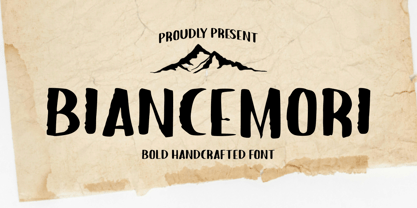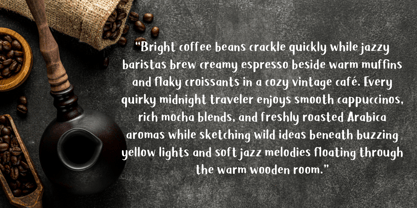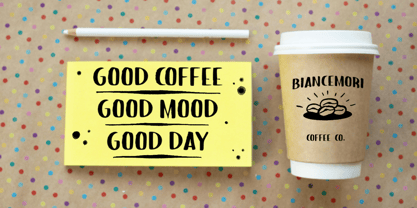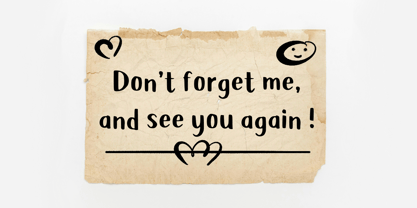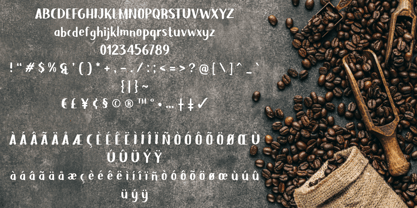
Biancemori
Biancemori – Bold Handcrafted Display Font
Biancemori is a bold handcrafted display font with a strong artistic personality and organic charm. Designed with unique irregular letterforms and natural handmade details, this font delivers an authentic and eye-catching look for any creative project.
Its bold structure combined with rough organic edges creates a perfect balance between playful, vintage, and artistic aesthetics. Biancemori is ideal for branding, logos, posters, packaging, merchandise, social media graphics, and many other design needs.
With its expressive handcrafted style, Biancemori brings warmth, creativity, and a distinctive visual character that makes your designs stand out effortlessly.
Features:
✔ Bold handcrafted display style
✔ Organic and artistic letterforms
✔ Perfect for branding, posters, and packaging
✔ Unique irregular strokes for authentic handmade feel
✔ Great for logos, merchandise, social media, and quotes
✔ Multilingual support
Let Biancemori add a bold creative touch to your next design project!